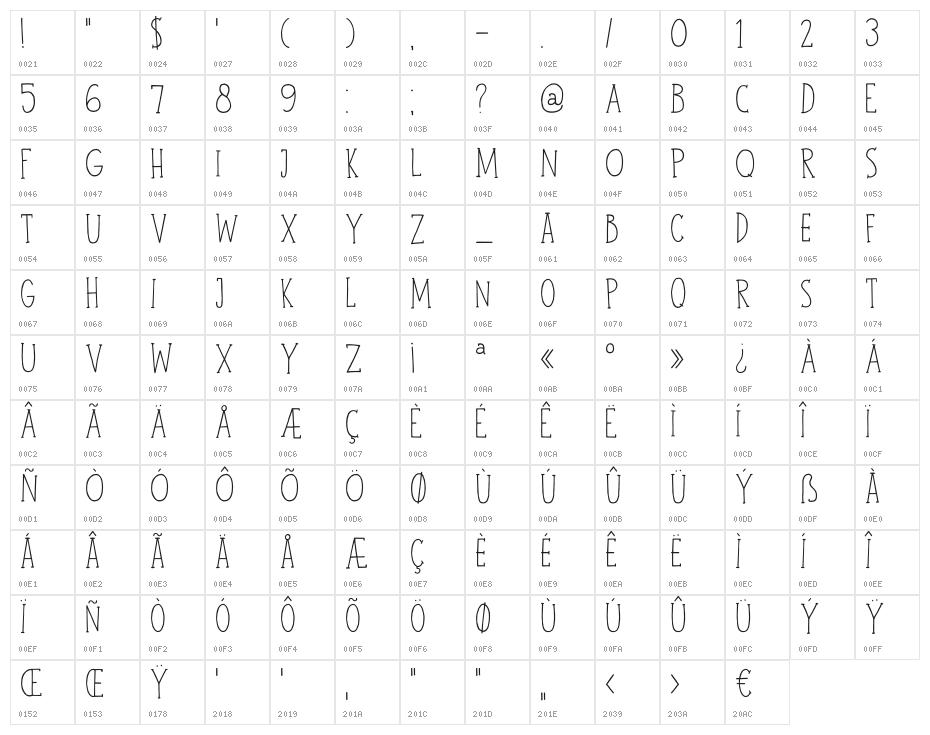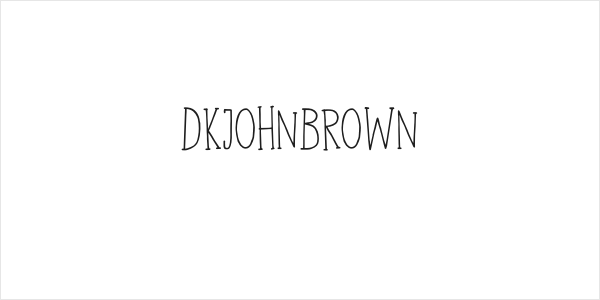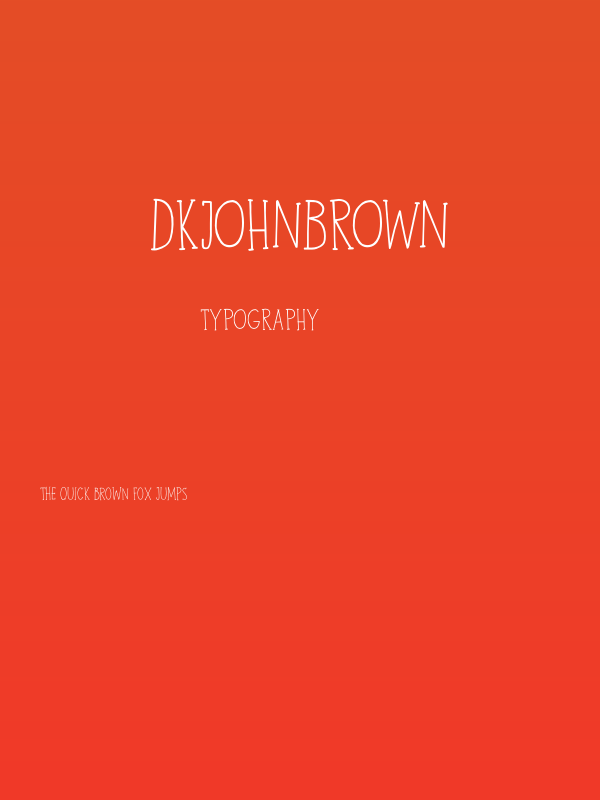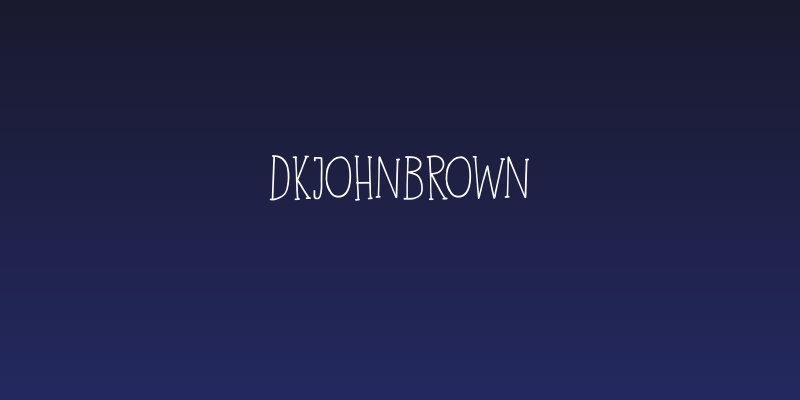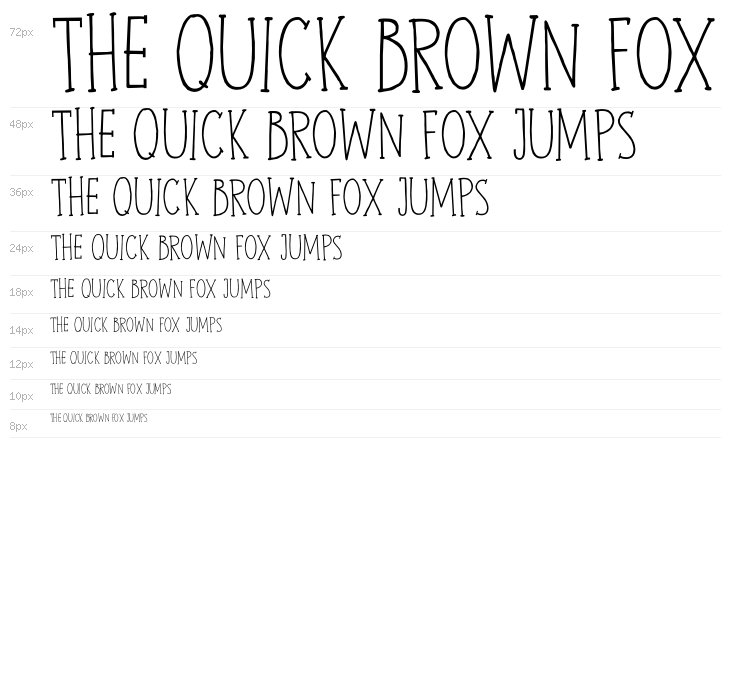
DKJohnBrown Font
DKJohnBrown Description
This font features a whimsical and playful design with tall, narrow characters that have a hand-drawn appearance. The uppercase letters are slightly irregular, adding to the charm and uniqueness of the style. The lowercase letters maintain the same playful quality, with a consistent stroke width that gives the font a cohesive look. Numbers are designed to match the overall style, with a similar height and stroke width. Special characters, including punctuation and symbols, are creatively integrated, maintaining the font's distinctive aesthetic. The font's overall appearance is both casual and artistic, making it suitable for projects that require a touch of creativity and individuality.